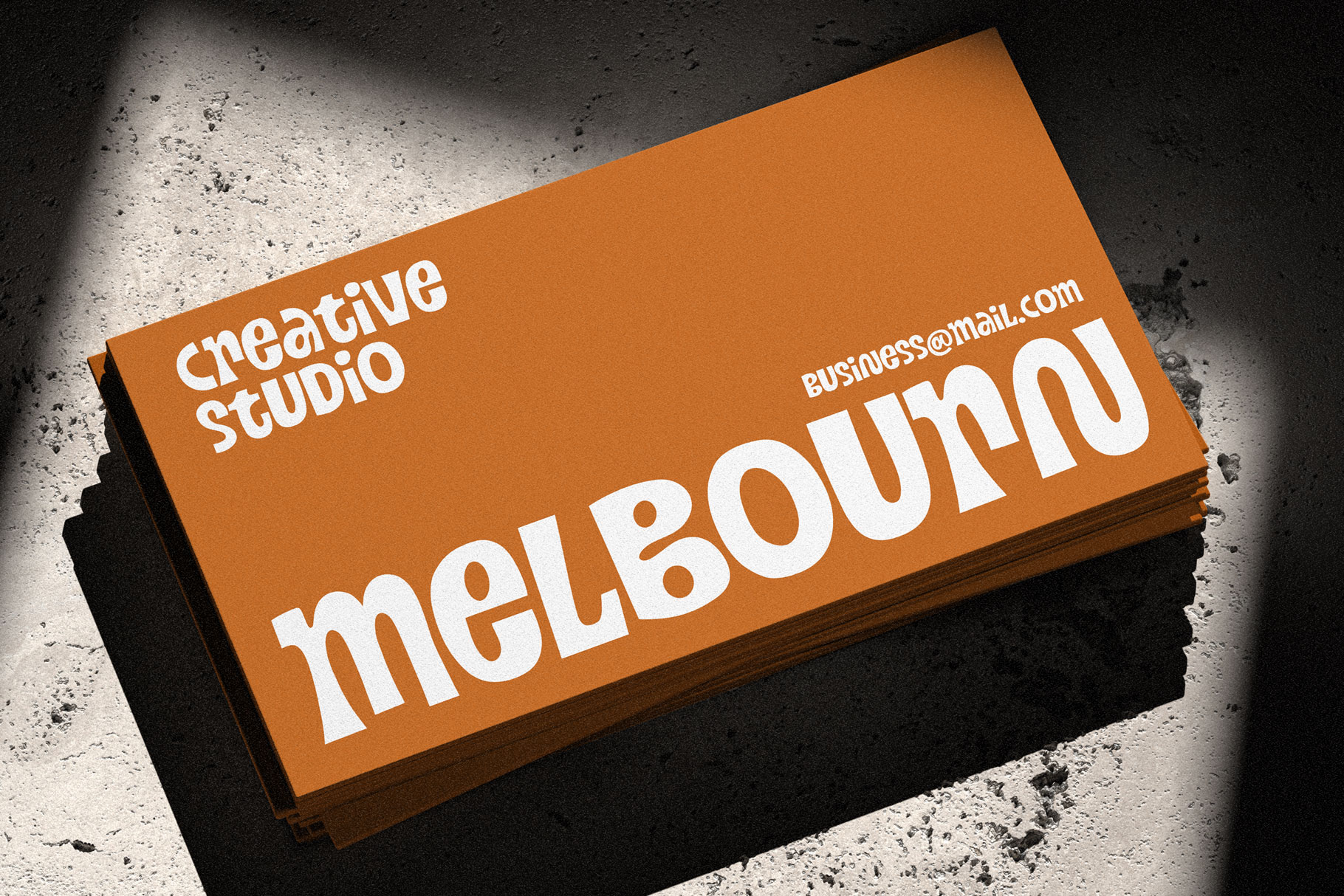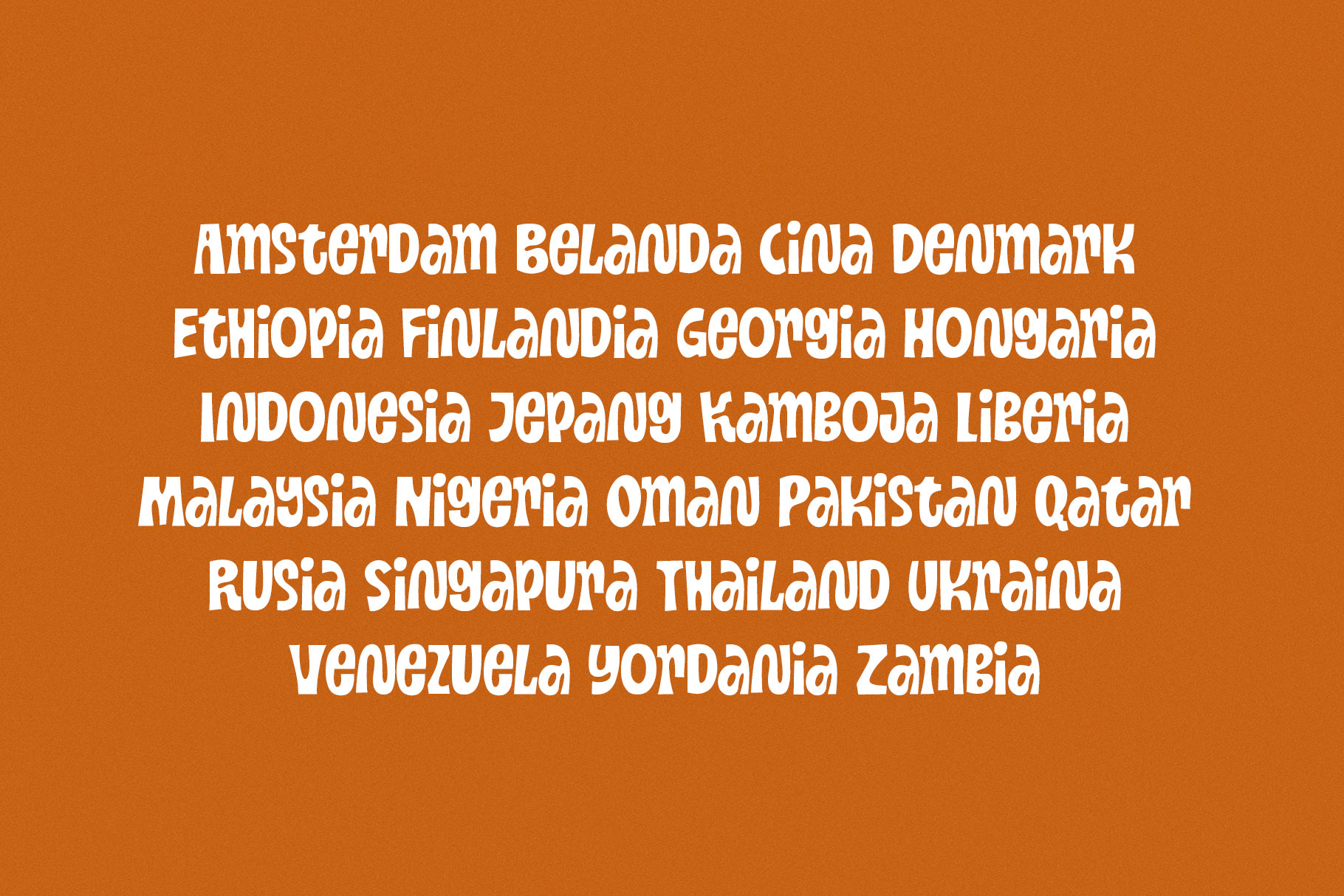
Andelo Funky Display Font
Andelo is funky display font designed to capture attention with its bold personality, playful shapes, and unconventional style. Andelo is a perfectly choice for any creative endeavor, creating, modern, lifestyle design such as logotype, title, cover, branding, invitations, wedding designs, display and magazine, social media posts, advertisements, printed quotes, product packaging, corporate brand, product designs, labels, photography, watermarks, special events and any other project with funky touch.